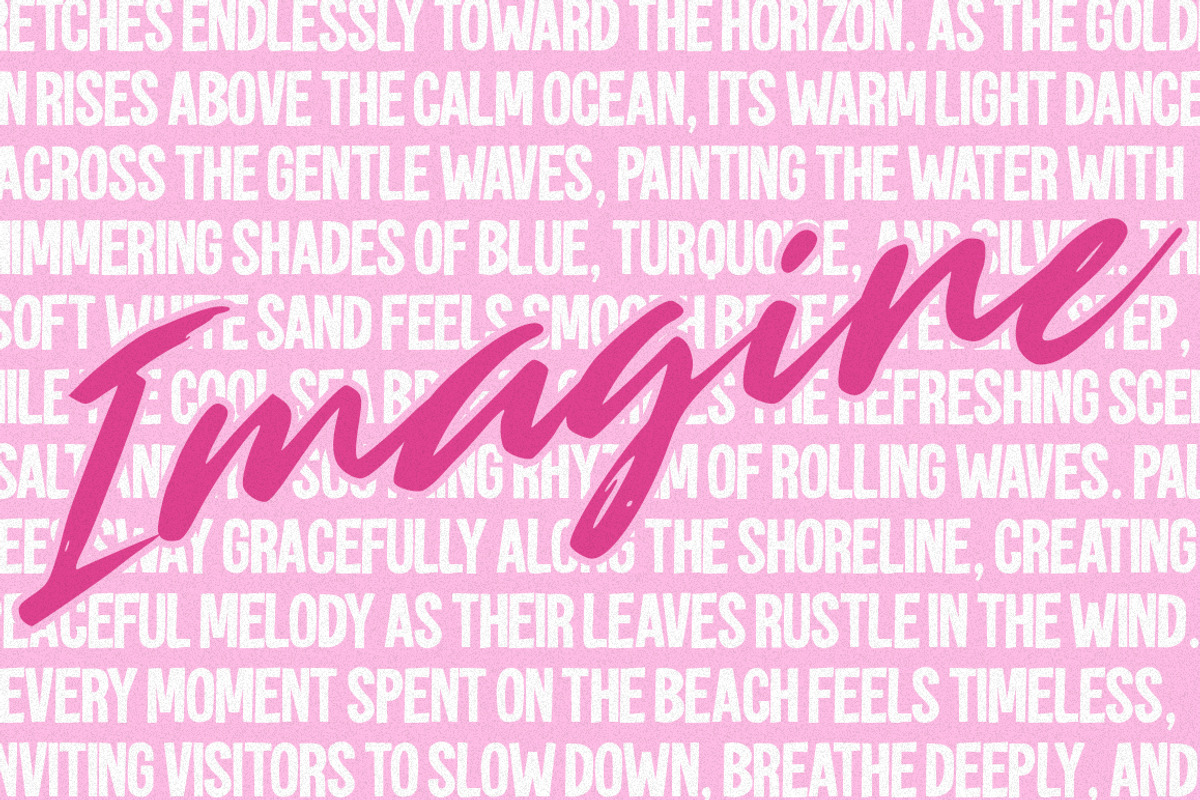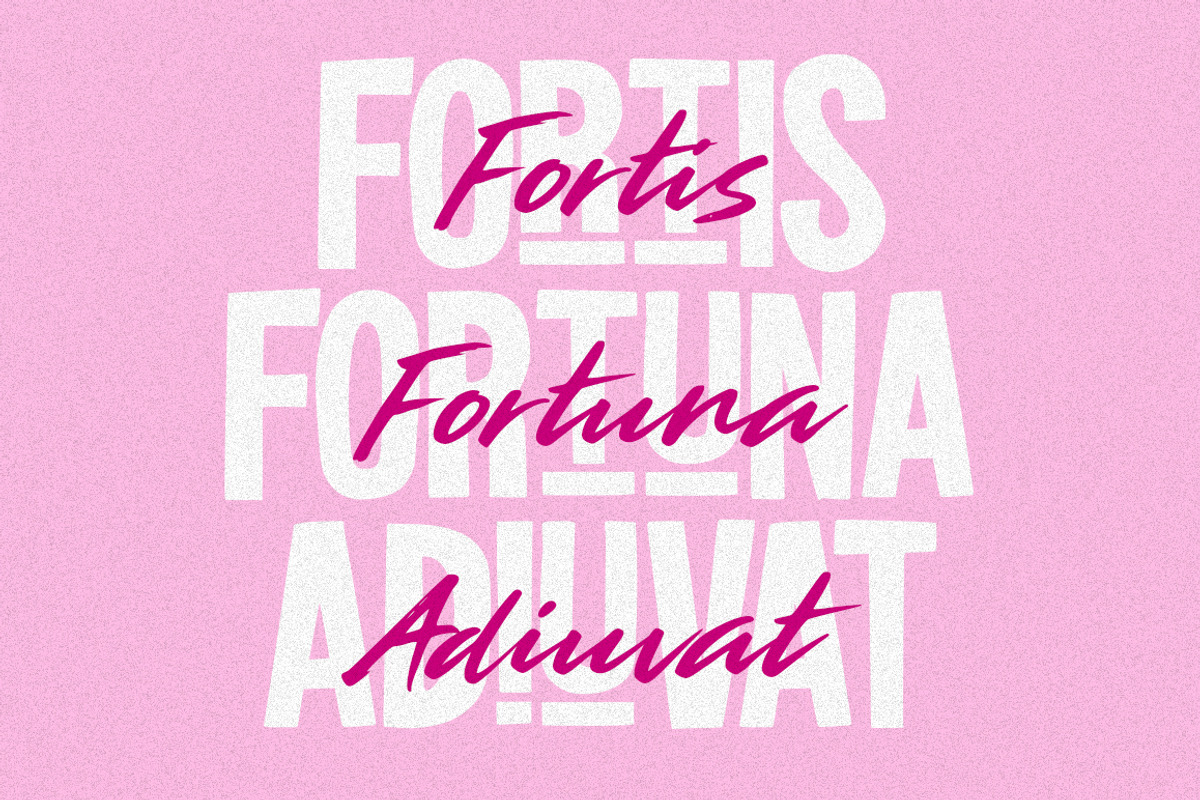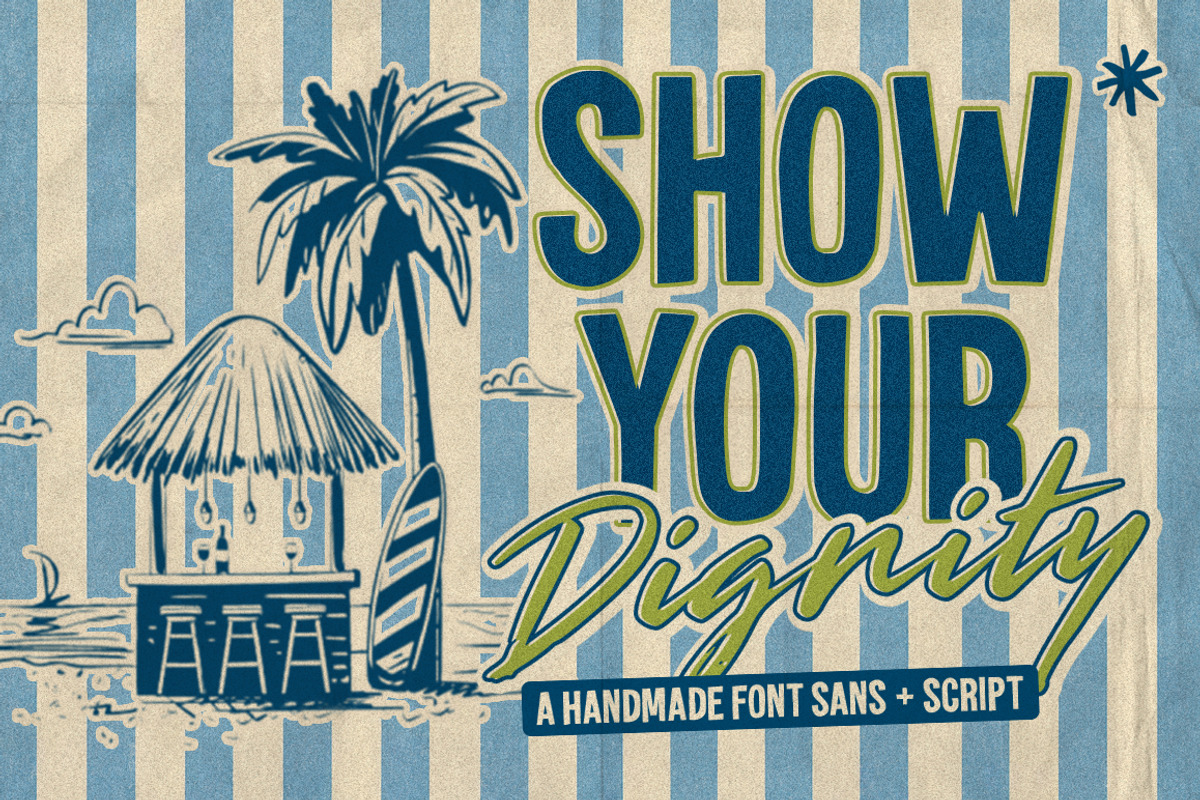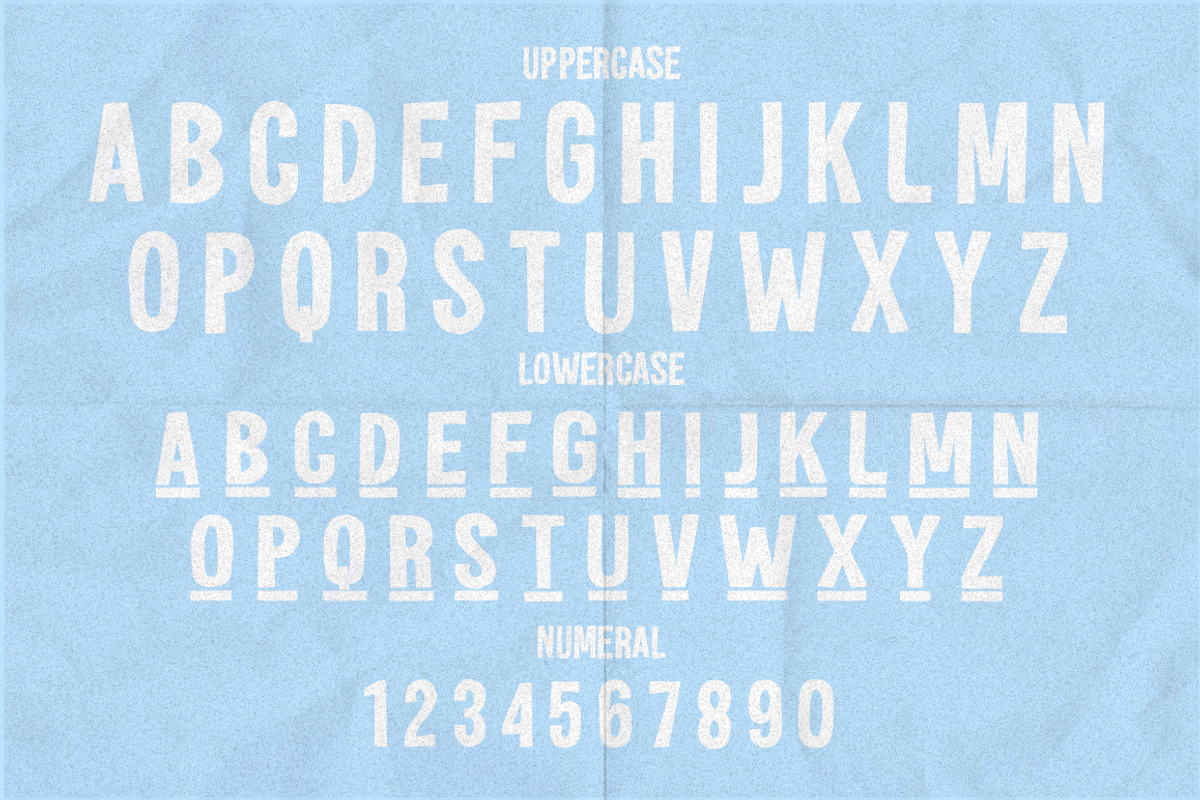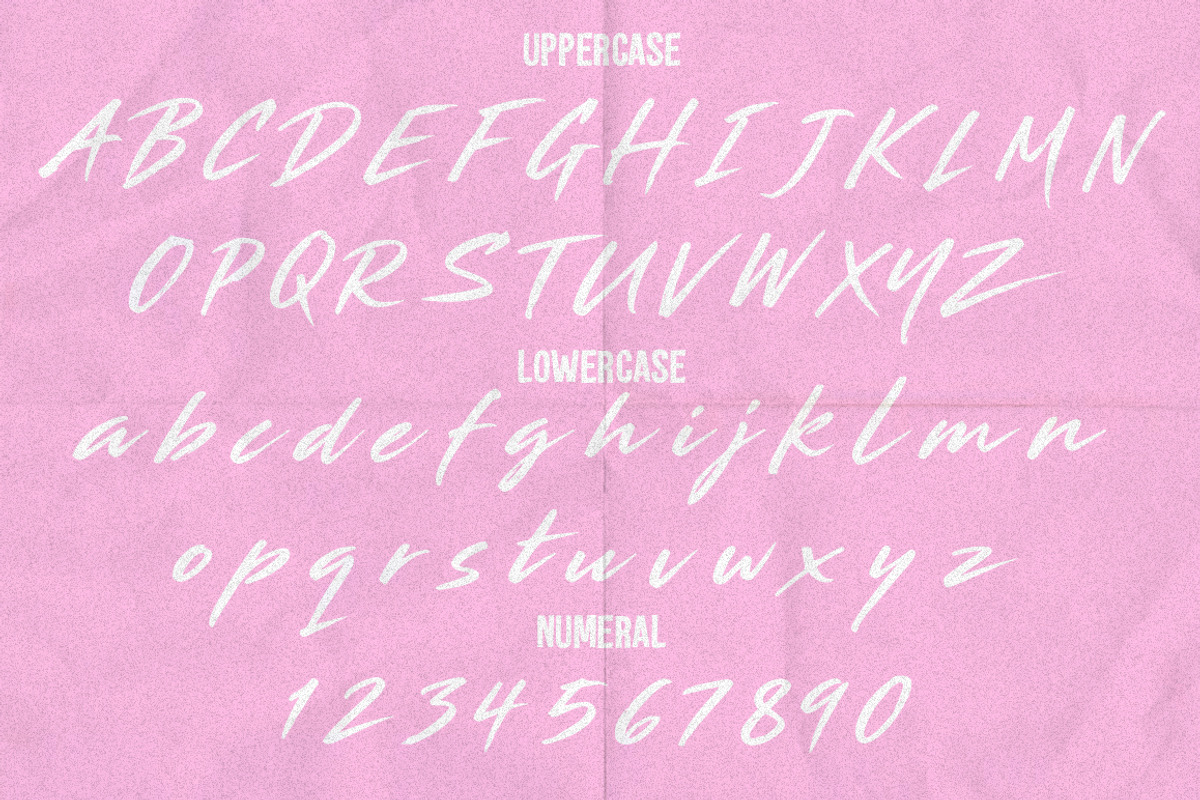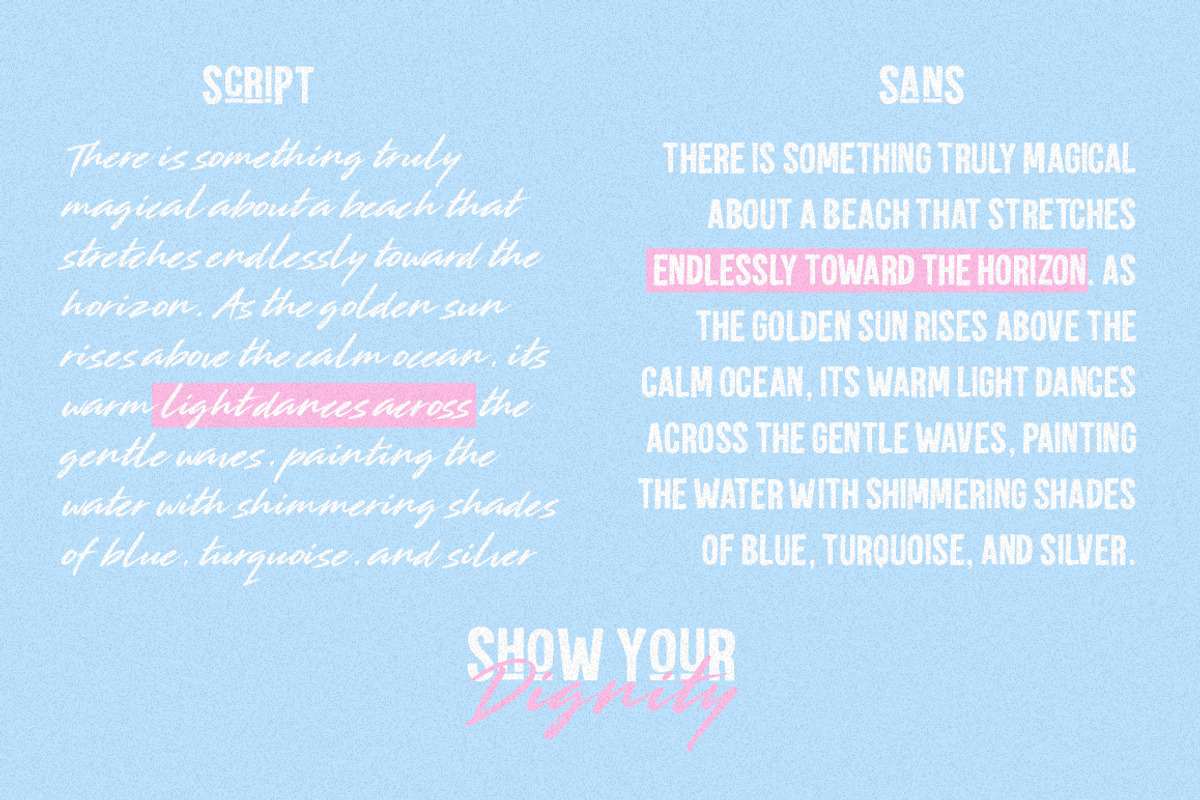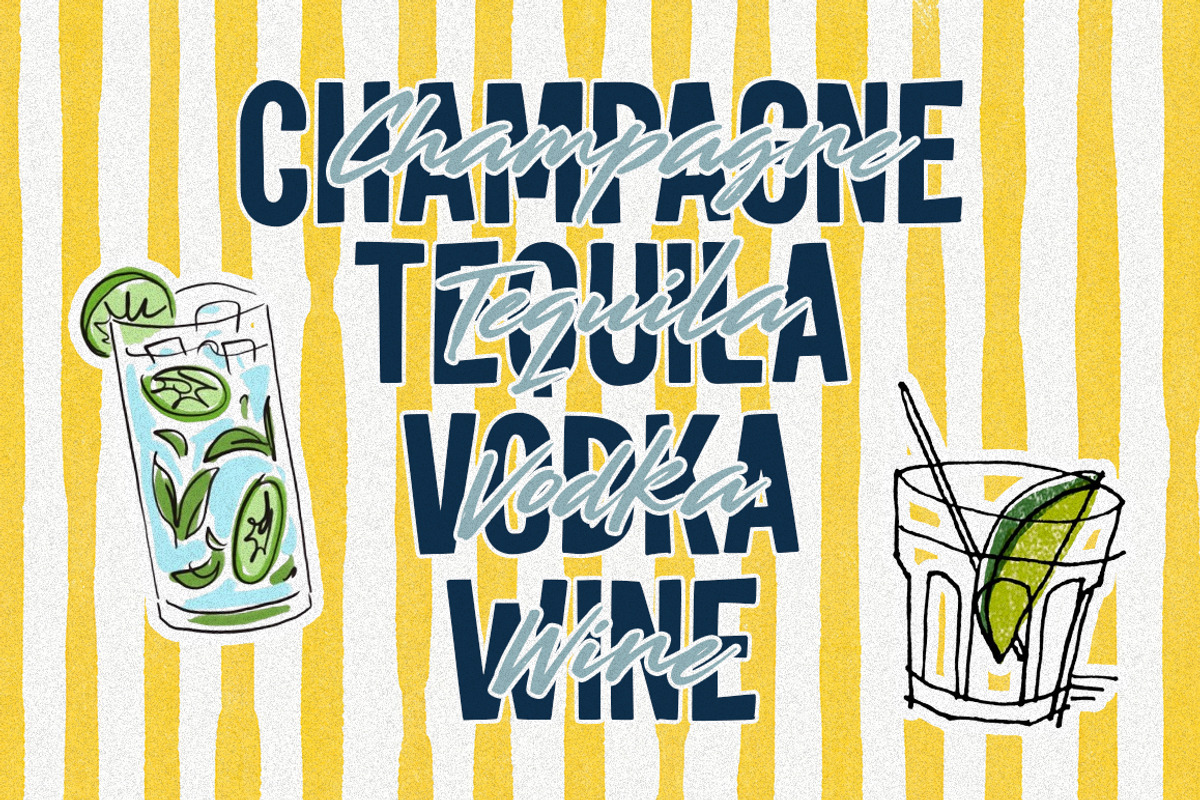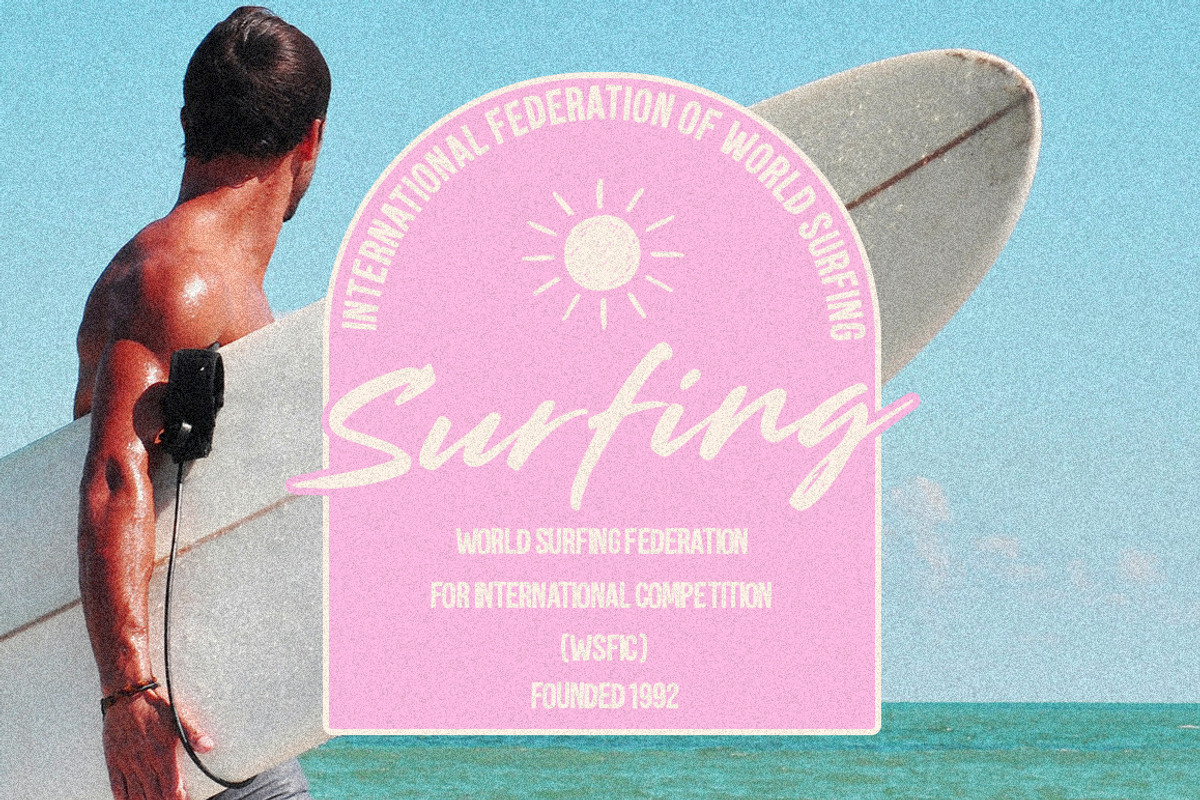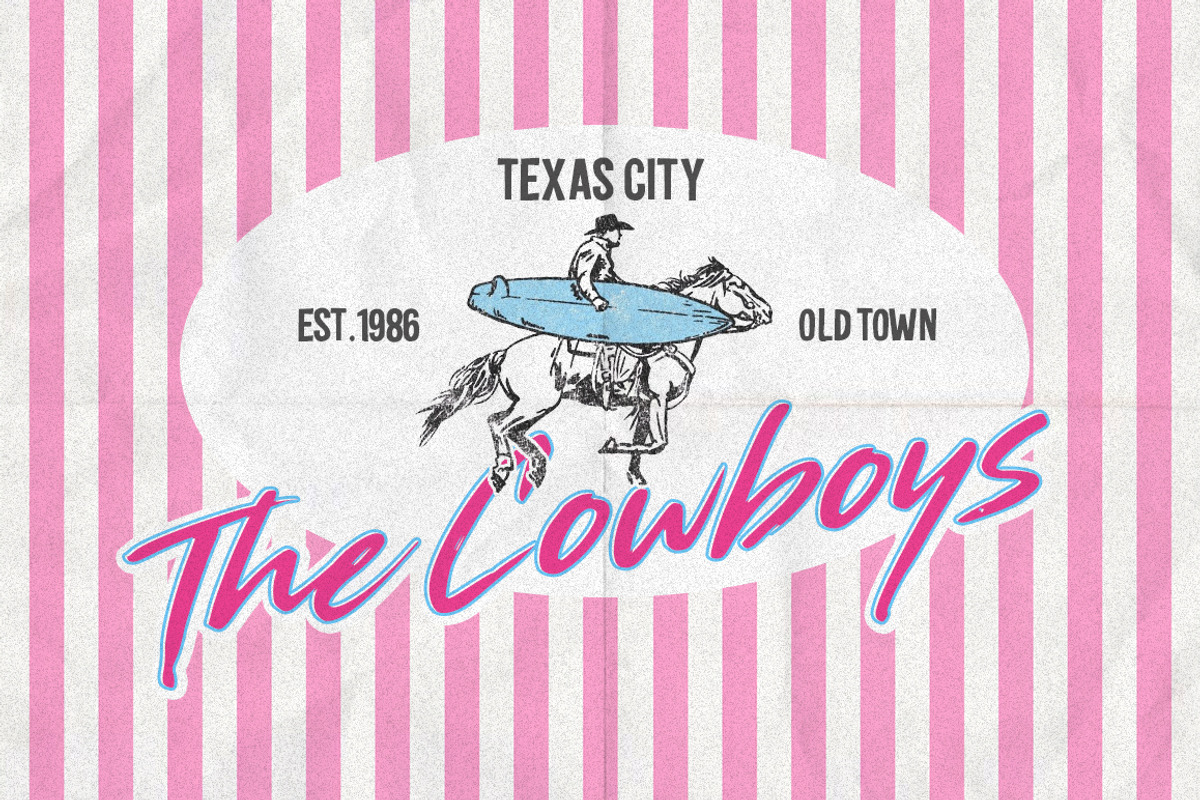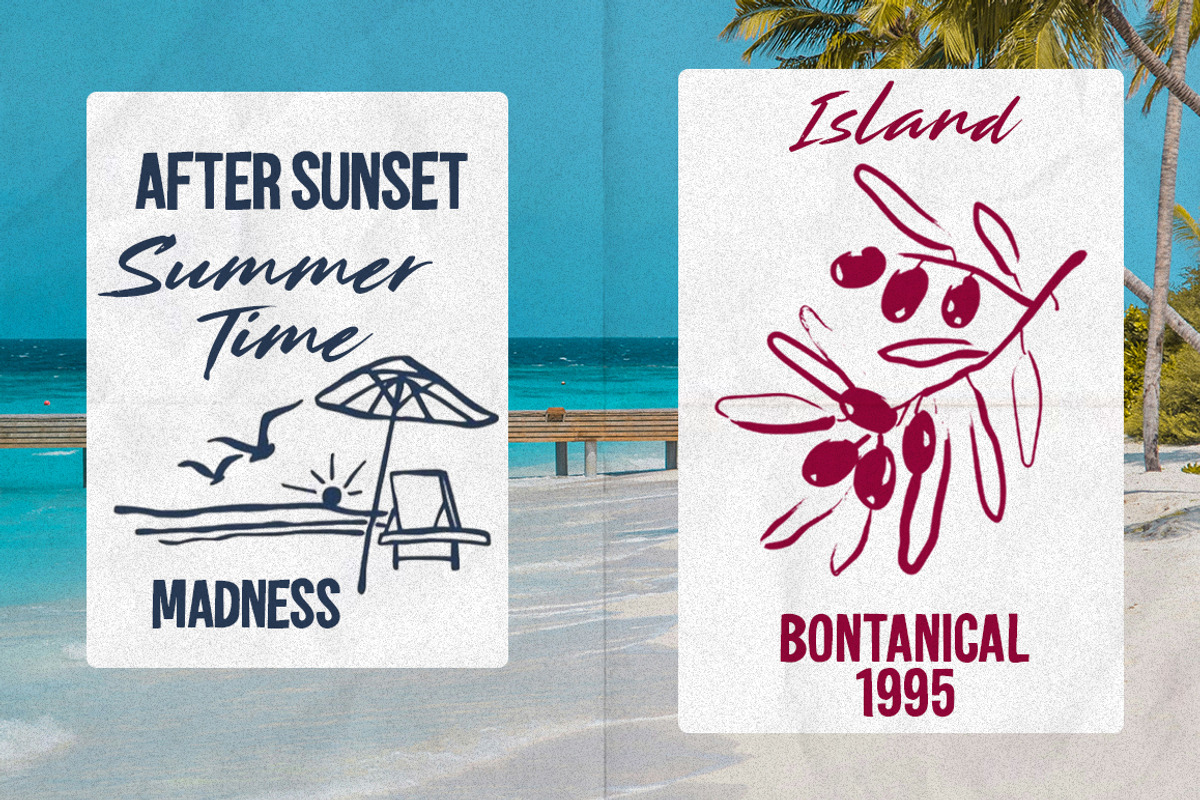
SHOW YOUR DIGNITY
A Handmade Trio Font of Timeless Elegance
Introducing Show Your Dignity, a beautifully handcrafted Trio font that combines the bold confidence of a modern display sans with the graceful charm of an expressive handwritten script. Carefully designed to create a refined visual harmony, this typeface captures the essence of sophistication while maintaining an authentic handmade character. Every letter has been thoughtfully crafted to deliver a natural flow, giving your designs a distinctive personality that feels both premium and approachable.
The display sans offers clean geometry, balanced proportions, and strong readability, making it ideal for impactful headlines, branding, editorial layouts, packaging, and luxury marketing materials. Paired seamlessly with the elegant script, which features fluid strokes and organic curves, Show Your Dignity creates a perfect contrast between structure and artistic expression. Together, they form a versatile typography system that effortlessly elevates any creative project.
Whether you're designing fashion campaigns, cosmetic packaging, restaurant branding, wedding stationery, social media content, logos, magazine covers, or premium product presentations, Show Your Dignity delivers a polished and memorable aesthetic. Its handcrafted details add warmth and individuality while preserving a clean, contemporary appearance that suits both modern and timeless design styles.
Created with versatility in mind, this font Trios provides the flexibility to build elegant typography compositions with ease. Use the sans font for powerful statements and pair it with the flowing script for refined accents, signatures, or sophisticated taglines. The result is a visual identity that communicates confidence, creativity, and enduring style.
Handmade Display Sans
Elegant Handwritten Script
Uppercase & Lowercase Characters
Show Your Dignity is more than a font Trio it's a statement of elegance, craftsmanship, and confidence. Designed for creators who appreciate refined typography, it brings a luxurious yet approachable character to every project, ensuring your message is presented with style, distinction, and lasting impact.